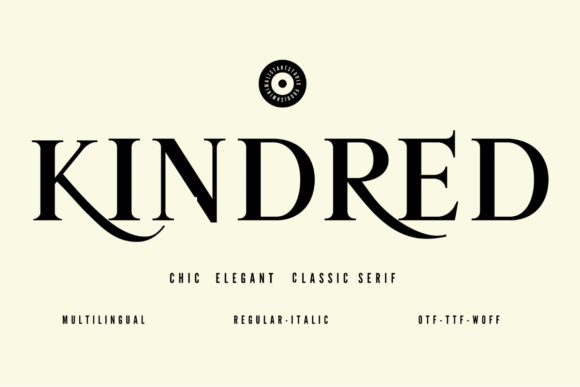
Introducing Kindred Font, the epitome of timeless elegance and delicate sophistication. Created by Minimalistartstudio, this classic serif typeface is the perfect companion for all your design projects, especially if you're looking to create stunning T-shirt designs that make a bold statement.
With its meticulously crafted letterforms and graceful serifs, Kindred Font exudes a touch of class that instantly captivates the eye. Its versatility knows no bounds, seamlessly adapting to any project, whether it's invitations, branding, or editorial design. No matter the occasion, Kindred Font effortlessly adds an air of sophistication that elevates your work to new heights.
But what sets Kindred Font apart from the rest? Its precision kerning and adaptability to various design elements make it a top choice for both contemporary and vintage aesthetics. Whether you're aiming for a modern, sleek look or a nostalgic, retro vibe, Kindred Font effortlessly blends in, creating designs that stand the test of time.
Imagine the possibilities with Kindred Font. Picture yourself crafting visually stunning T-shirt designs that leave a lasting impression of timeless beauty and refinement. Each stroke of this font tells a story, conveying emotions and capturing attention like no other. From bold statements to intricate details, Kindred Font empowers you to express your creativity in ways you never thought possible.
Don't settle for mediocrity when it comes to typography. Embrace the art of design and let Kindred Font be your muse. With its rich history and impeccable craftsmanship, it is the ultimate tool for designers who strive for perfection. Stand out from the crowd and make a statement with fonts that speak volumes.